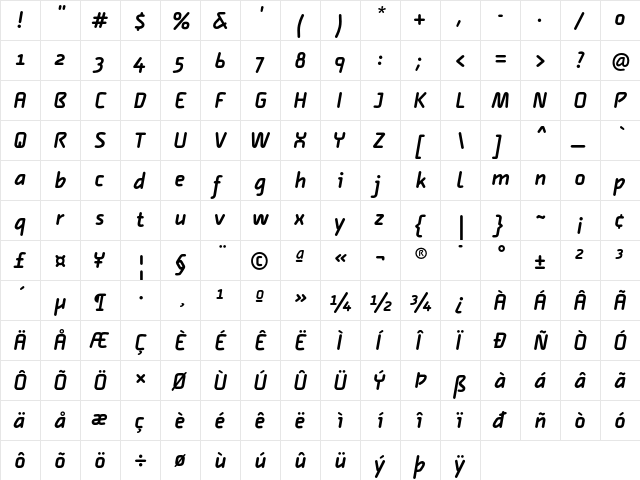
Alega-BoldItalic Regular Font Preview
| Foundry | Siegfried Rueckel, published by FontShop International for the FontFont library |
Design Context for Alega-BoldItalic Typeface
Alega-BoldItalic offers clean, dependable letterforms without strong stylistic allegiance, making it a practical choice for designers who need flexibility. The dynamic lean of this cut emphasises speed and emphasis in any layout. The heavy weight commands attention and anchors typographic hierarchies.
Pro Tip: Try Alega-BoldItalic for annotation and caption copy alongside an upright companion — the contrast in angle creates a dynamic but ordered typographic system.